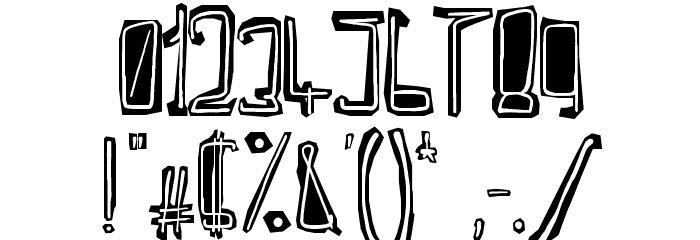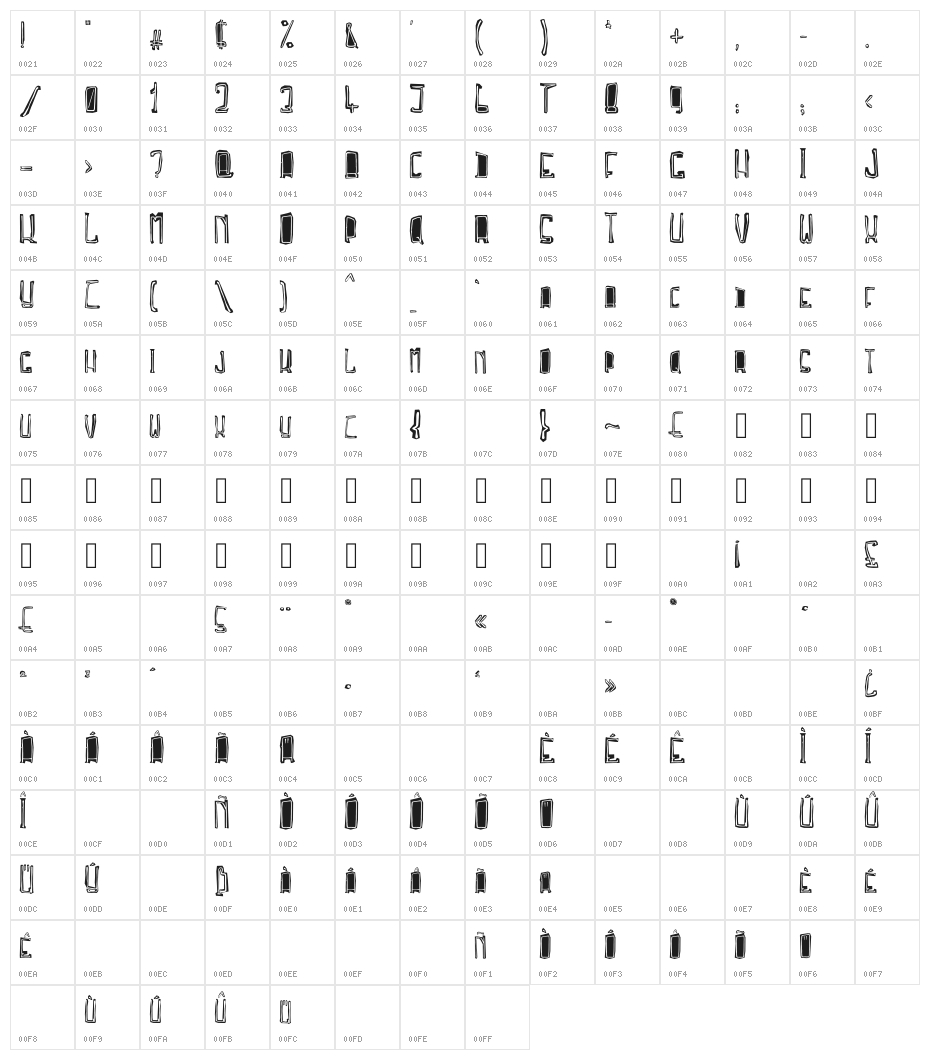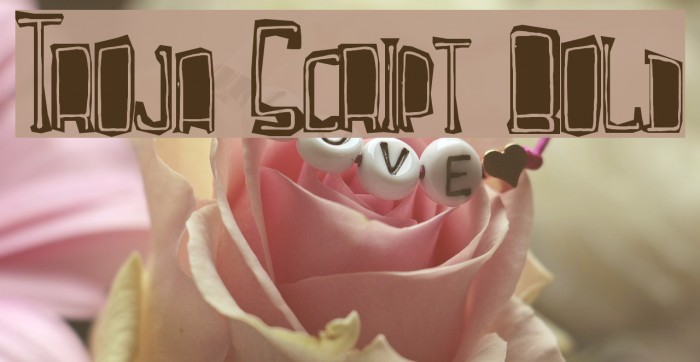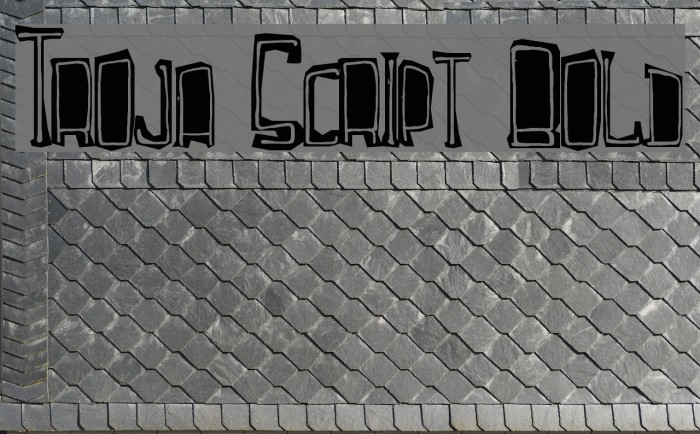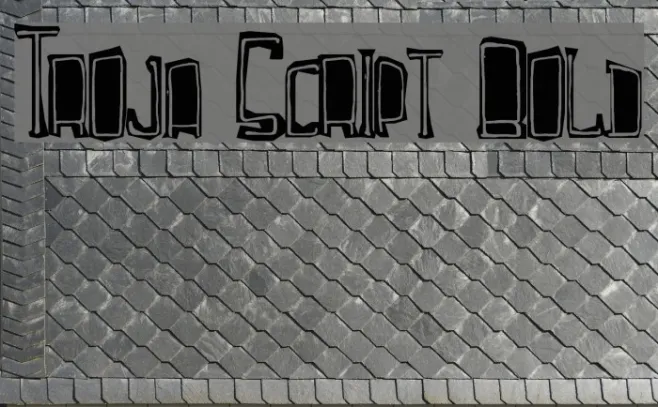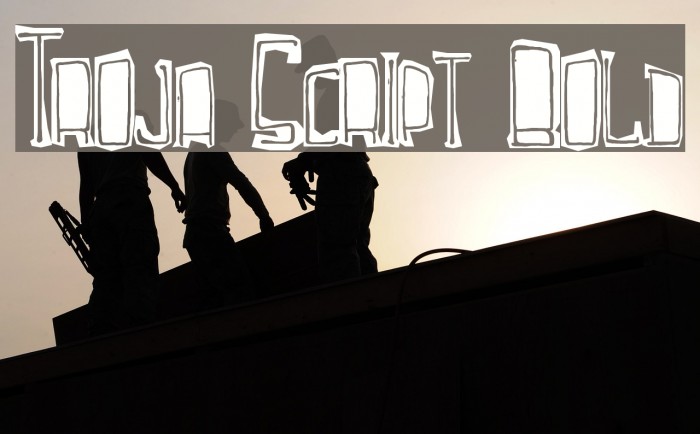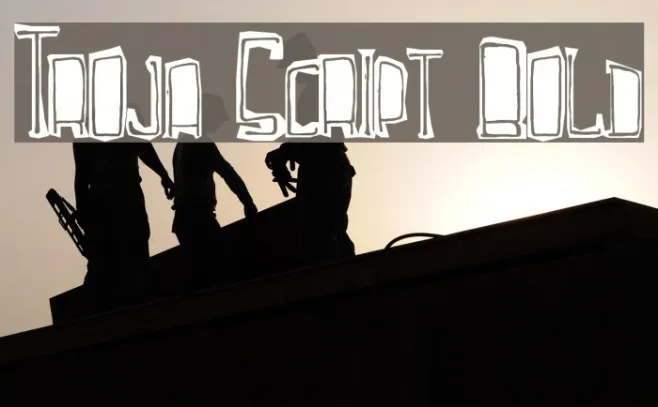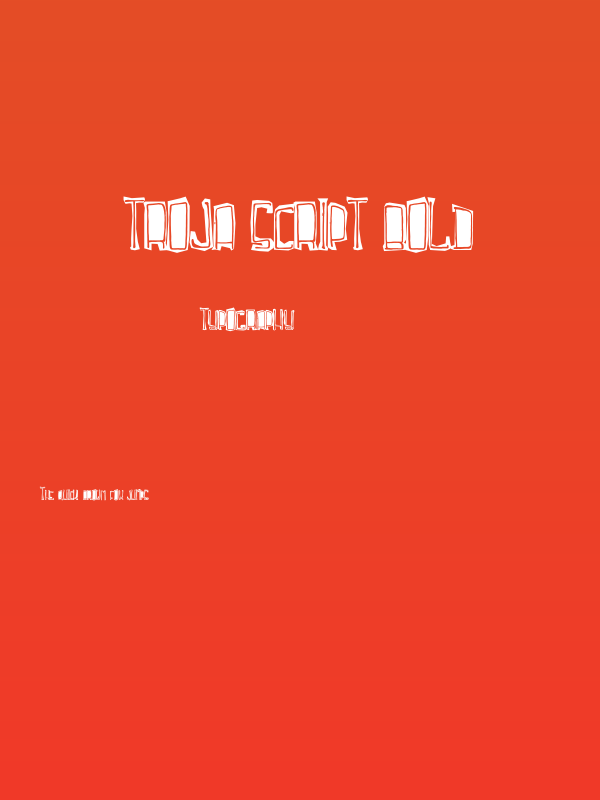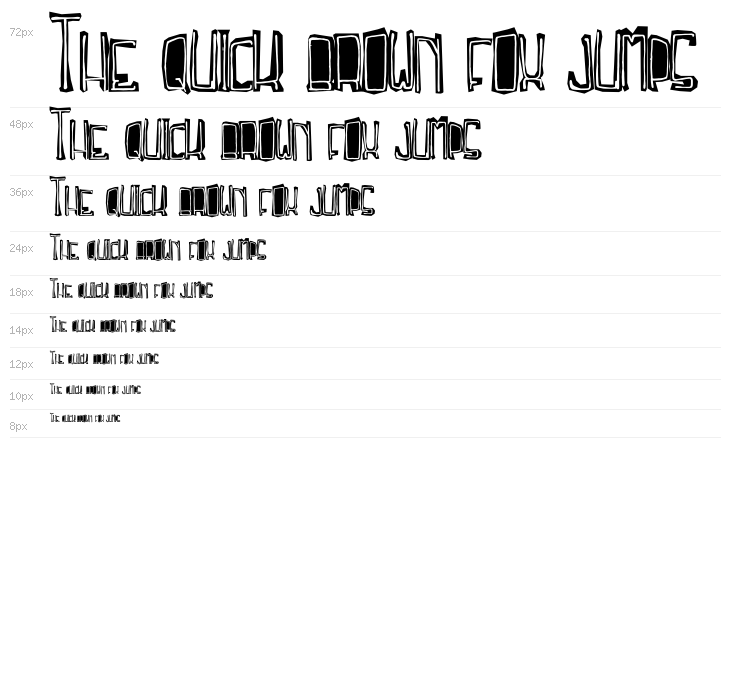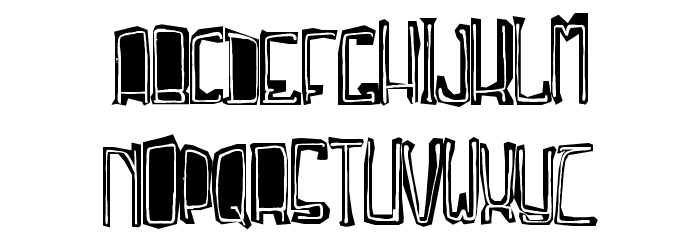
Troja Script Bold Font
Troja Script Bold Description
This font features a bold, artistic style with a hand-drawn appearance. The characters are outlined with a thick, uneven stroke that gives a dynamic and expressive look. The uppercase and lowercase letters maintain a consistent height, creating a uniform appearance across the text. The numbers and special characters follow the same stylistic approach, ensuring cohesion throughout. The font's unique design makes it stand out, with each character having a slightly irregular shape that adds to its charm. This font is ideal for projects that require a creative and bold statement, offering a distinctive and eye-catching aesthetic.
| Proposed Projects | Ideal for posters, album covers, artistic branding, and creative headlines. |